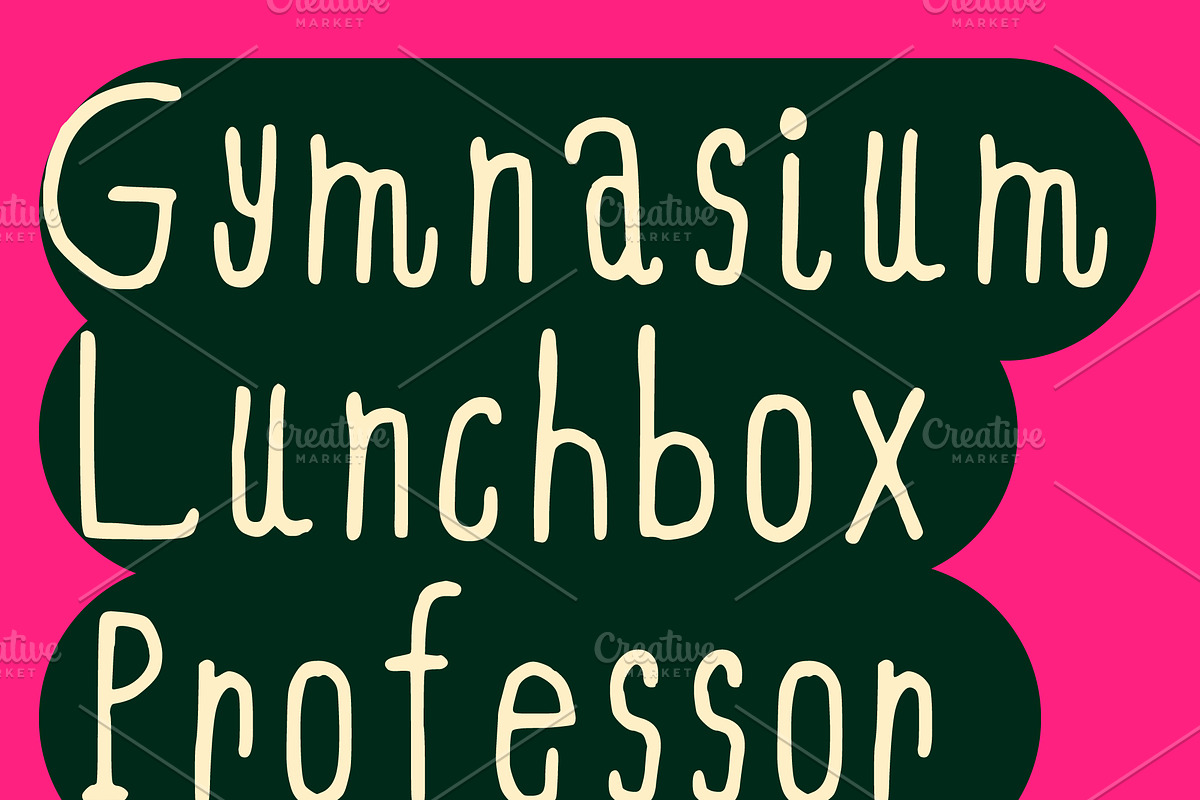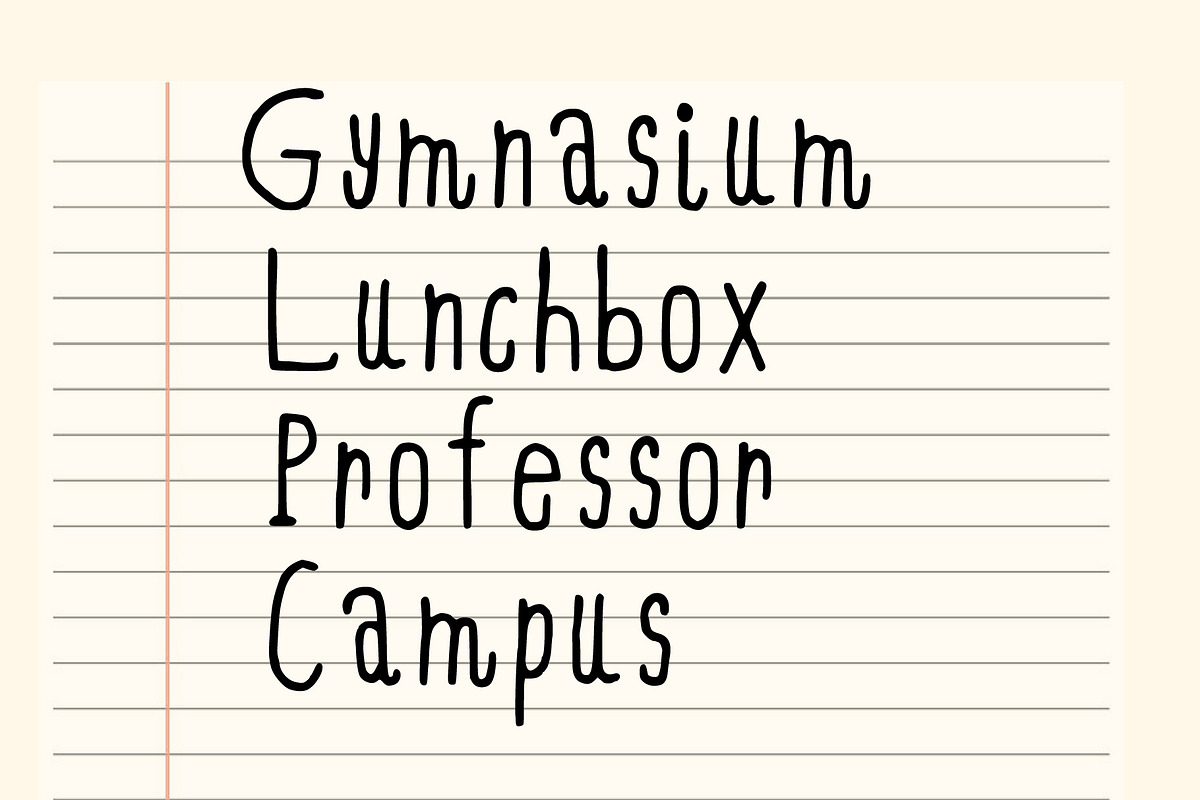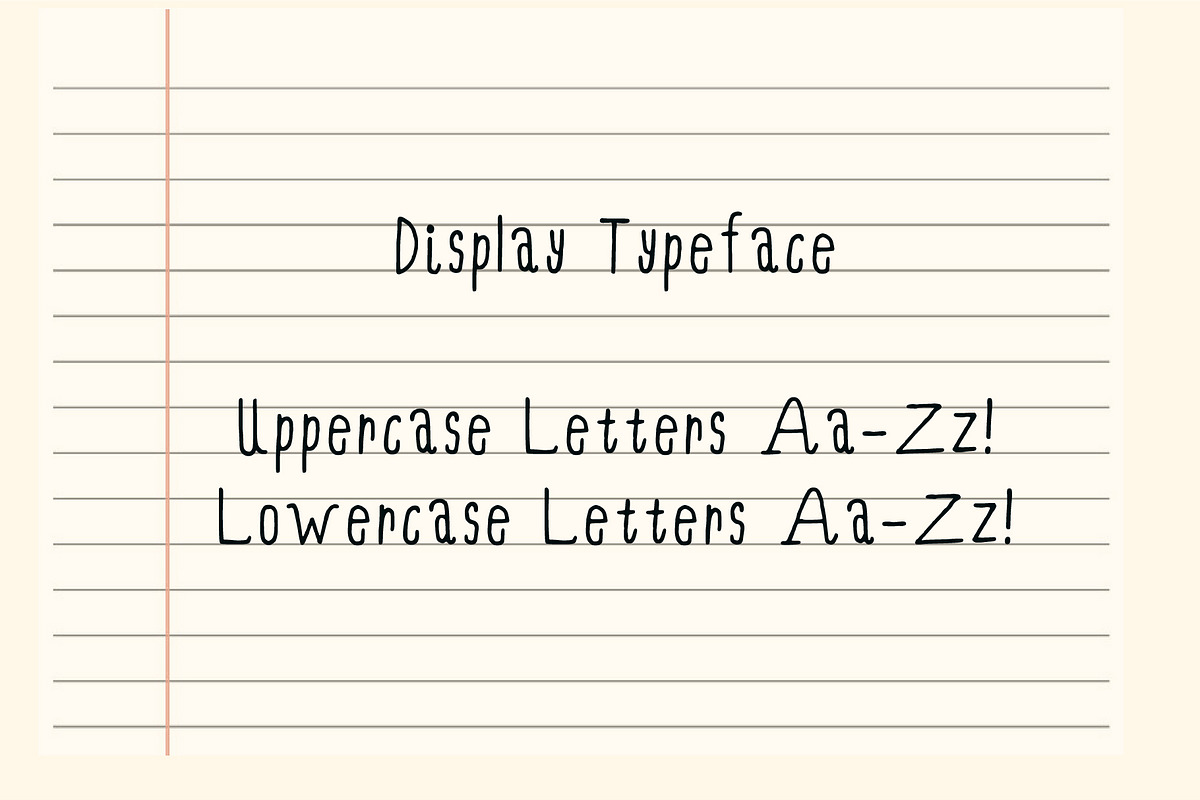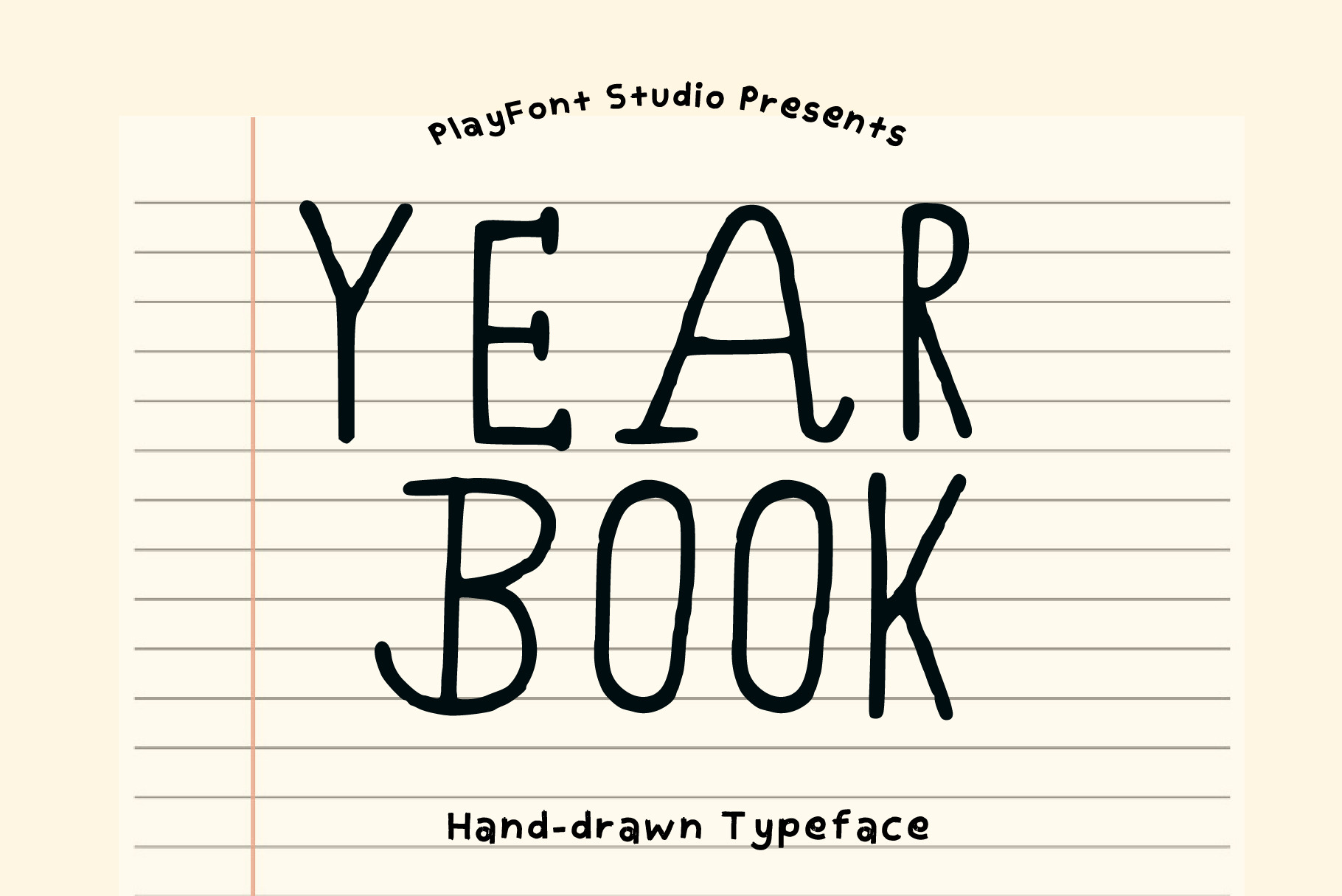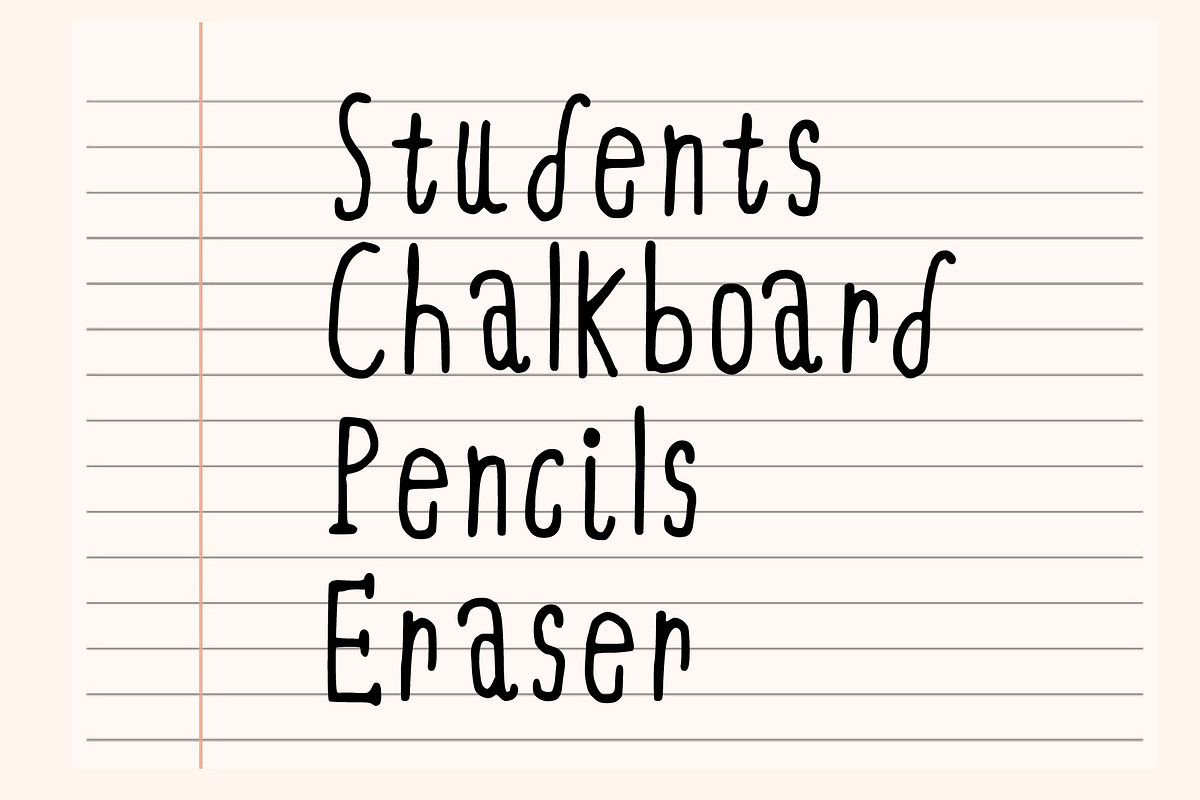
Yearbook - A Handmade Typeface
Introducing Yearbook, a hand-drawn serif font inspired by school exercise books. Remember those doodles in the margins of your textbooks? Yearbook channels that same energy into your designs but also could be used for your branding or editorial display font needs.
What’s in the font?
- Uppercase Letters A-Z
- Lowercase Letters a-z